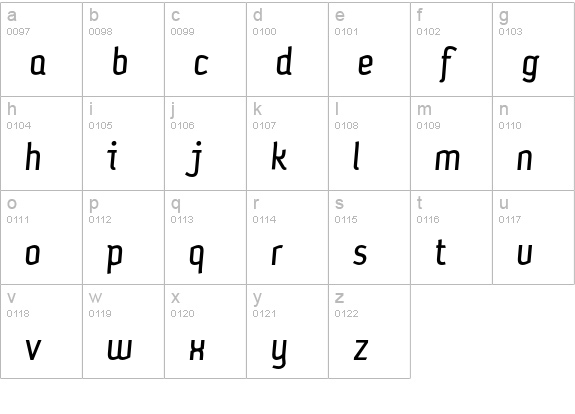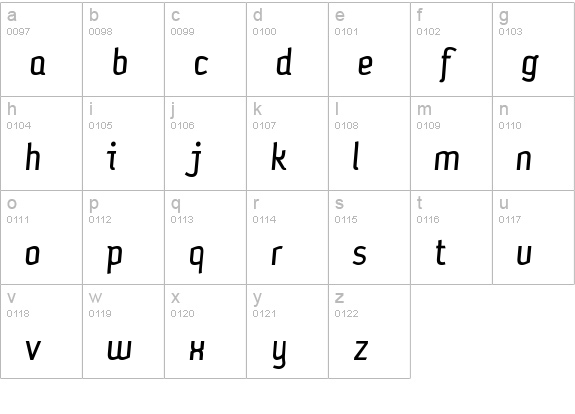
Petrol-Italic is a distinctive, italic variant in the Petrol typeface family \xE2\x80\x94 well suited to design and typography projects.
Petrol-Italic font is a stunning typeface that exudes elegance and sophistication. With its sleek and curvaceous letterforms, it adds a touch of class to any design project. The italicized style of this font brings a sense of dynamism and movement, making it perfect for capturing attention and creating a lasting impression. This font is not only aesthetically pleasing but also incredibly versatile. Whether you're designing a logo, creating a wedding invitation, or crafting a magazine layout, Petrol-Italic font will elevate your design to a whole new level. Its unique and stylish appearance adds a sense of modernity and professionalism, making it suitable for a wide range of applications. One of the best things about Petrol-Italic font is that it is freely available to download at FontsMarket.com. This means that you can easily access and use this font in your projects without any restrictions. Whether you're a professional designer or a hobbyist, you can enjoy the beauty and elegance of Petrol-Italic font without having to spend a dime. So why wait? Download Petrol-Italic font today and see how it transforms your designs from ordinary to extraordinary. With its timeless appeal and free availability, this font is an absolute must-have for any designer looking to make a statement. Don't miss out on the opportunity to add this exquisite typeface to your collection and take your designs to new heights.